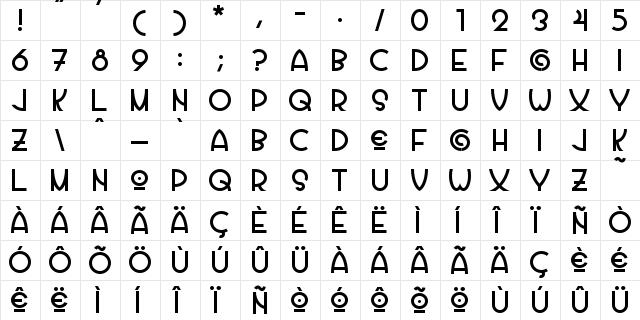
Vila Morena Regular
Vila Morena takes a measured approach to typography — its balanced proportions and neutral character make it a reliable workhorse for both digital and print work.